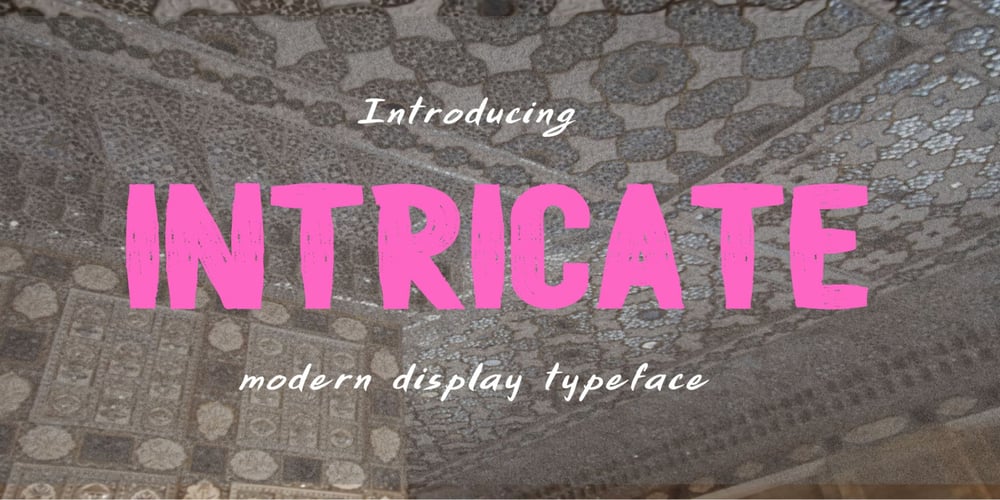
Intricate
Intricate font
Intricate Font Family was designed by Karen Ackoff and published by Dream Font. Intricate contains 1 styles and family package options. Introducing Intricate is a bold condensed brush font designed to make a statement. With its powerful strokes, raw textures, and fearless energy, this typeface delivers strength and attitude in every letter. Whether you’re crafting branding, logos, packaging, merchandise, or social media graphics, INTRICATE adds a dynamic, handcrafted touch that grabs attention instantly.